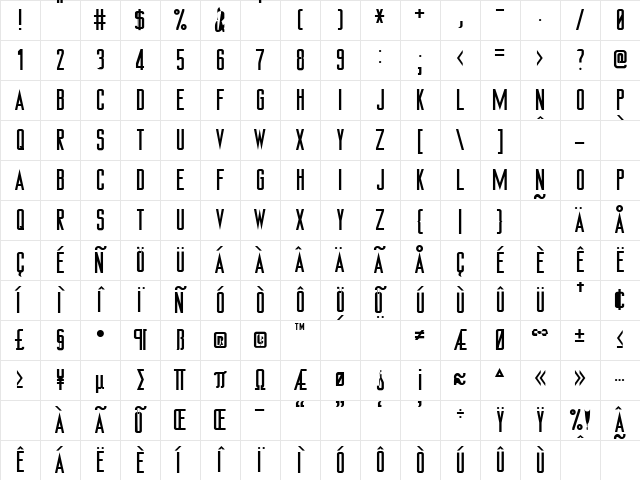
TNGMonitors Normal Free Font
TNGMonitors Normal
TNGMonitors Normal Family
TNGMonitors Normal
Design Context for TNGMonitors
TNGMonitors is a composed and adaptable typeface that performs quietly and consistently across a wide range of design contexts.